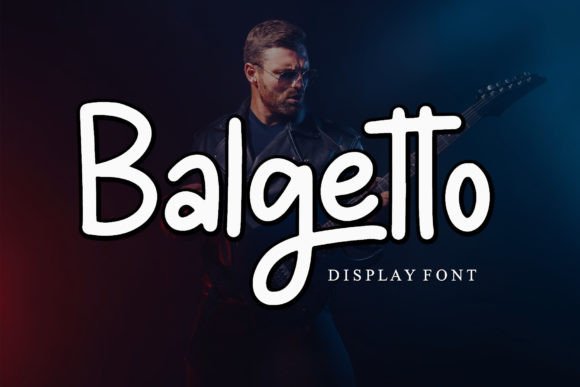
Prepare to be mesmerized by Balgetto, a captivating display font that will ignite your creativity and leave an unforgettable impression. This remarkable creation by Annisa Afni is the perfect companion for all your card design endeavors, transforming your messages into captivating works of art.
With its playful and carefree spirit, Balgetto effortlessly evokes a sense of joy and warmth. Each character dances across the page, inviting you to express your individuality and spread happiness with every word. Whether you're crafting heartfelt greetings, whimsical invitations, or eye-catching announcements, Balgetto is your go-to font for injecting a touch of magic into your designs.
Step into a world where imagination takes flight and let Balgetto be your guide. This versatile font empowers you to convey emotions, share stories, and create lasting memories that will be cherished for years to come. Its enchanting charm will captivate your audience, leaving them spellbound by the beauty of your creations.